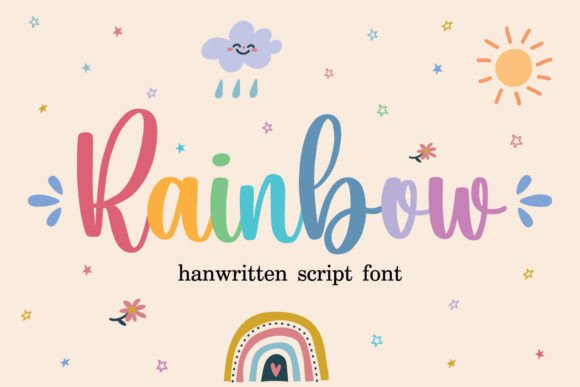
Welcome to the world of Rainbow Font, the script font designed by Mozatype! This beautiful font is the perfect blend of sweetness and elegance, making it an ideal choice for all your design needs.
With its charming and delicate strokes, Rainbow Font is perfect for creating stunning logos, branding, and quotes. Its unique style makes it stand out from the crowd, and it can add a touch of personality to any project.
Whether you are designing a wedding invitation, a greeting card, or a social media post, Rainbow Font is the perfect choice. Its soft curves and smooth lines give it a romantic and feminine look, and its playful nature makes it a joy to work with.
Rainbow Font is more than just a font, it's an experience. It will take your designs to the next level, and help you create something truly unique and memorable.